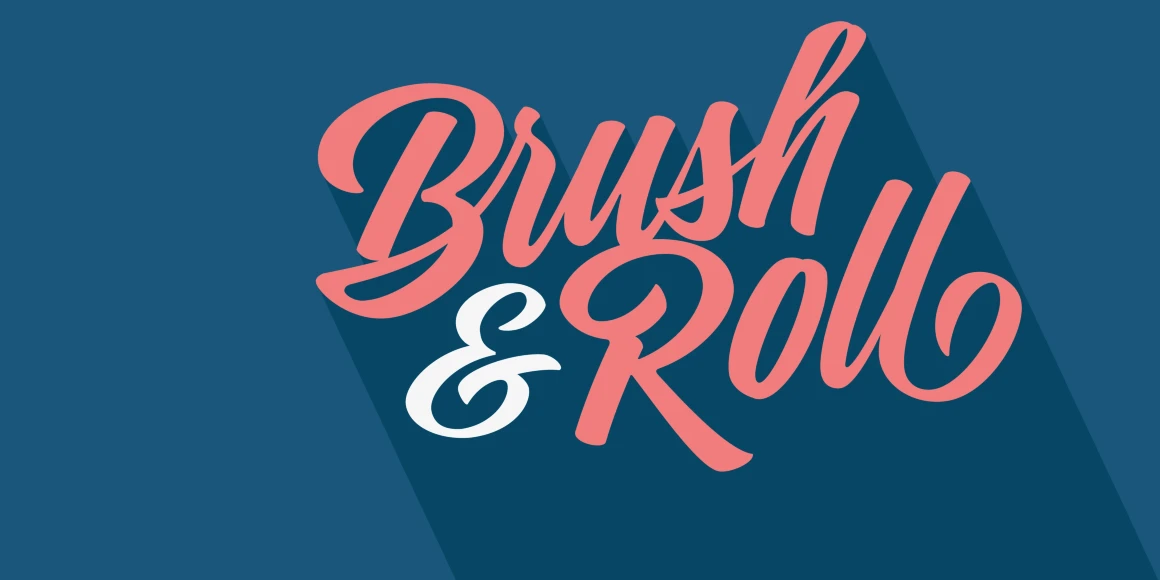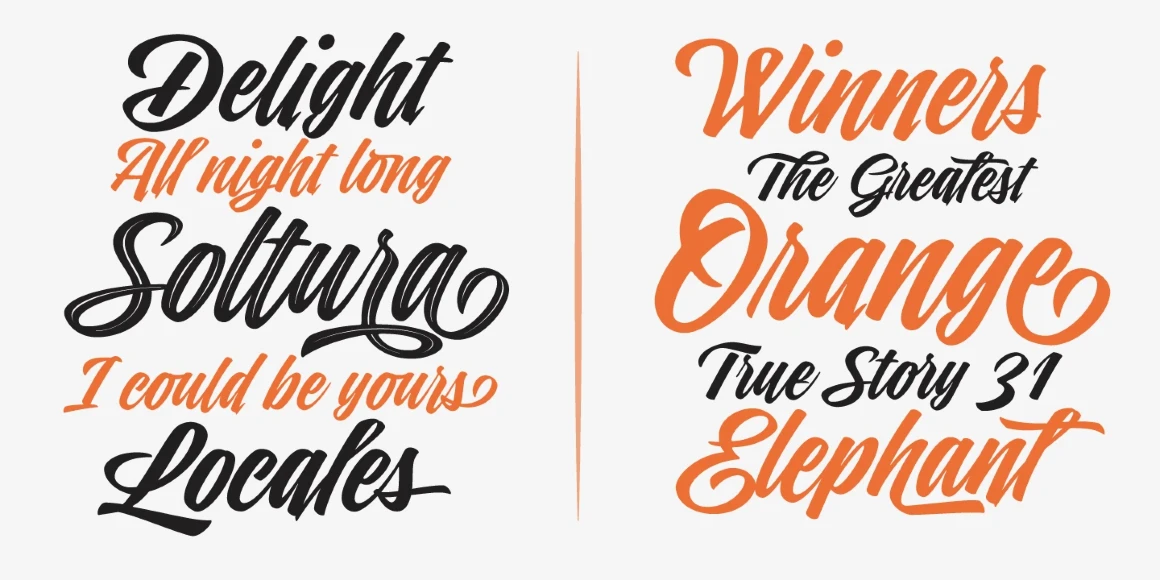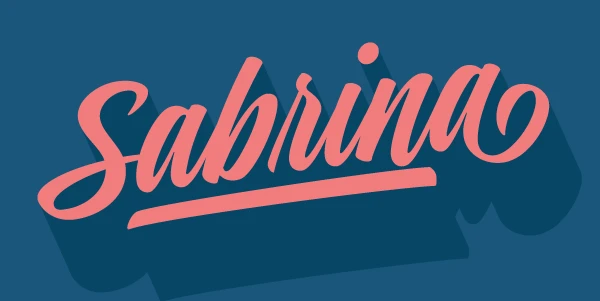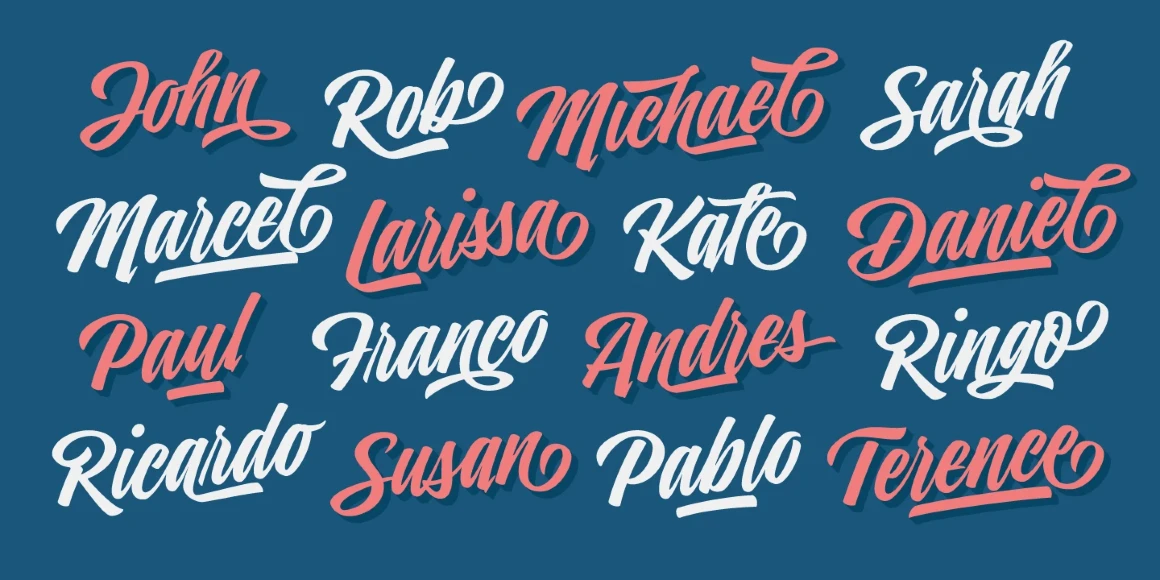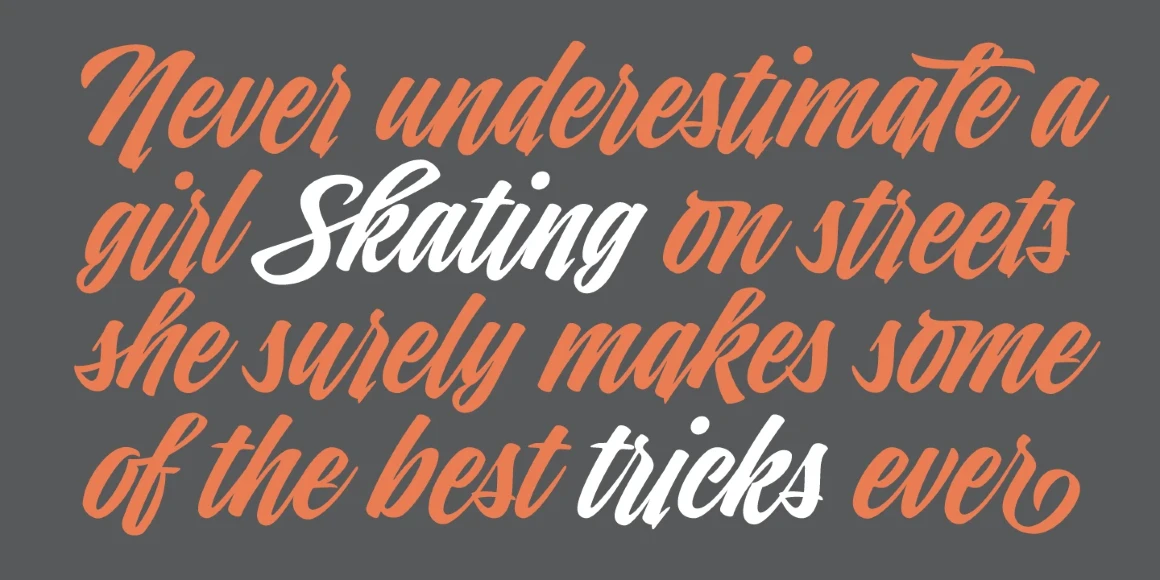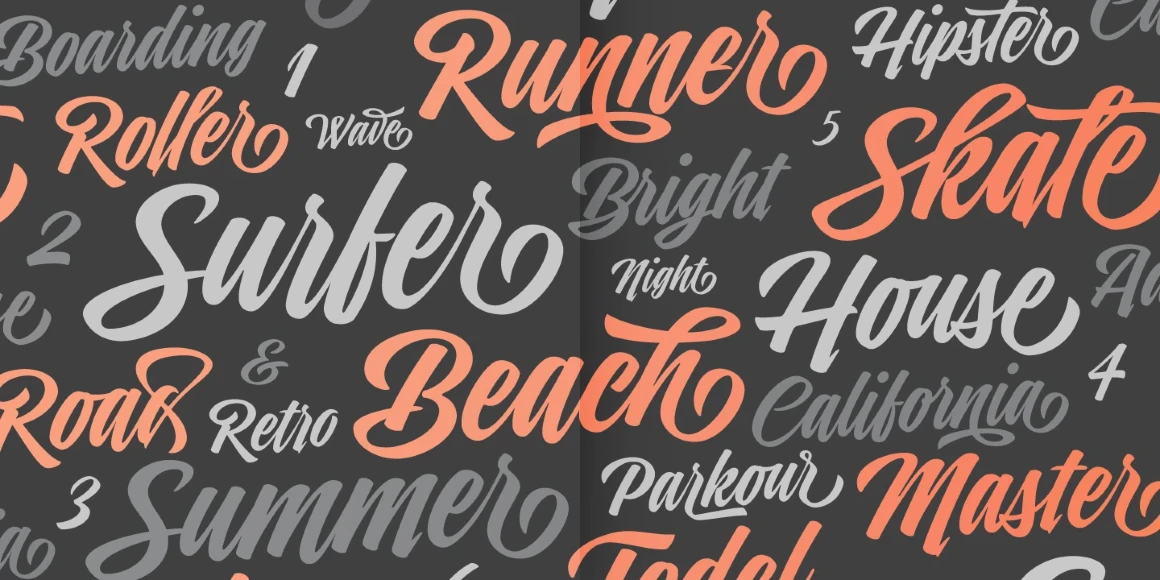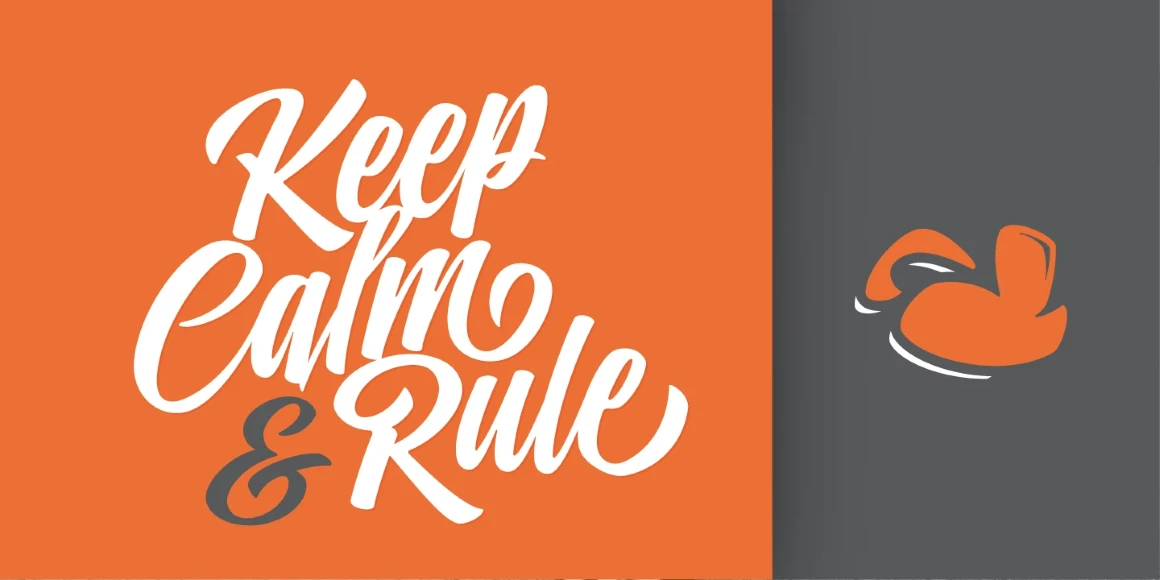
Indie
From Sproviero Type
Indie is a lively brush script capturing free-spirited, sun-soaked summers. Inspired by the pulse of street style and hand-painted signs — with a nod to Carl Rohrs — it channels the expressive flow of a pointed brush with bold curves and a laid-back rhythm. Regular, Inline, Shade, Shade Solo, and Caps all deliver a typographic palette perfect for live event posters, artisanal gift packaging, pop music branding, rebellious fashion labels, or anything needing daring spontaneity and edge.
Designed by Maximiliano Sproviero
Indie Inline
Indie Regular
Indie Shade
Indie Shade Solo
Titling
Final Forms